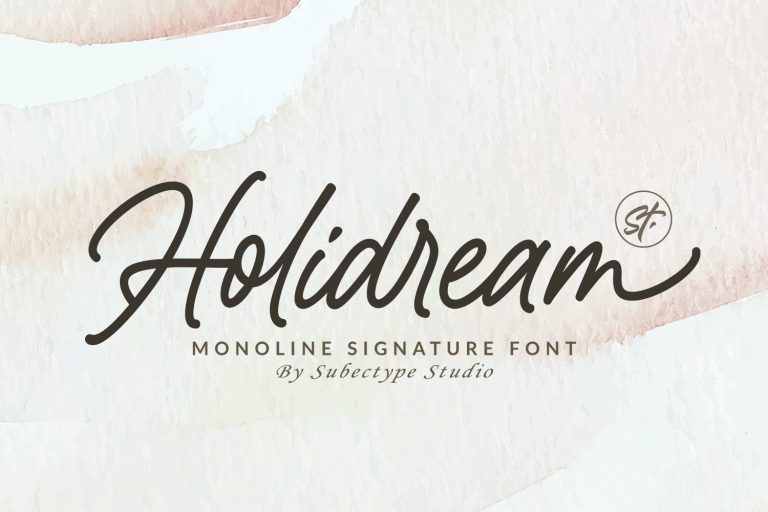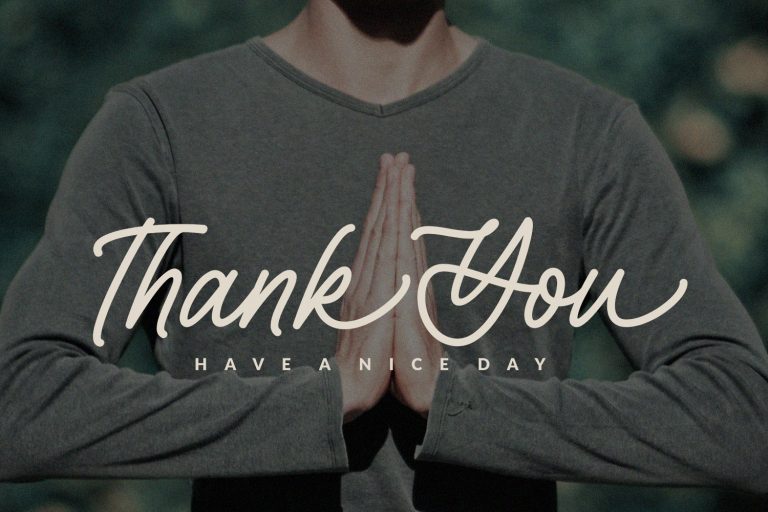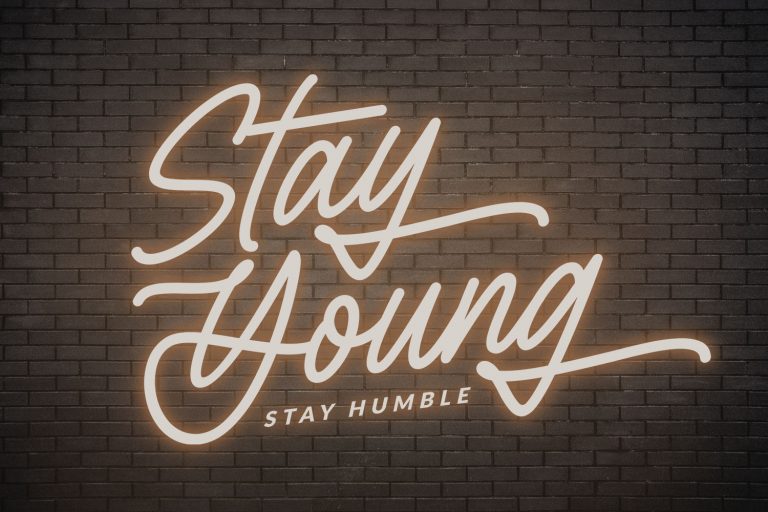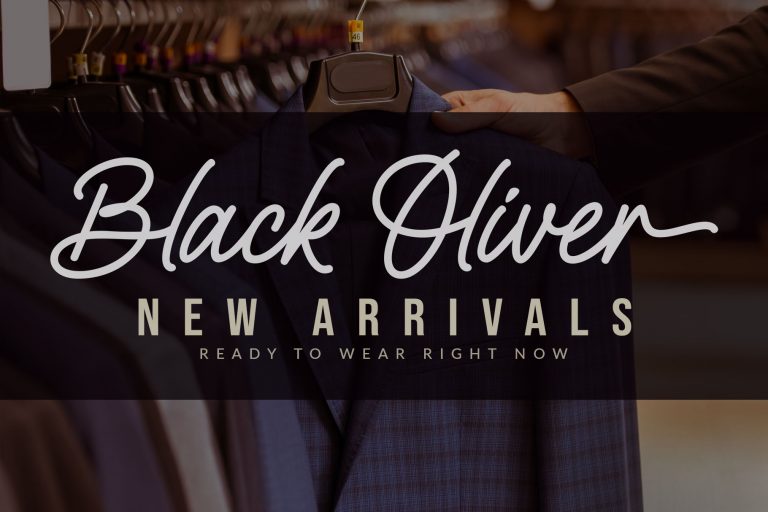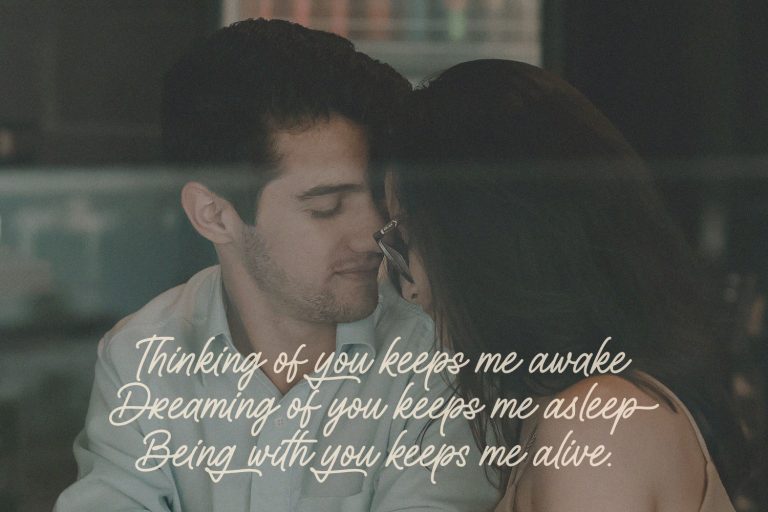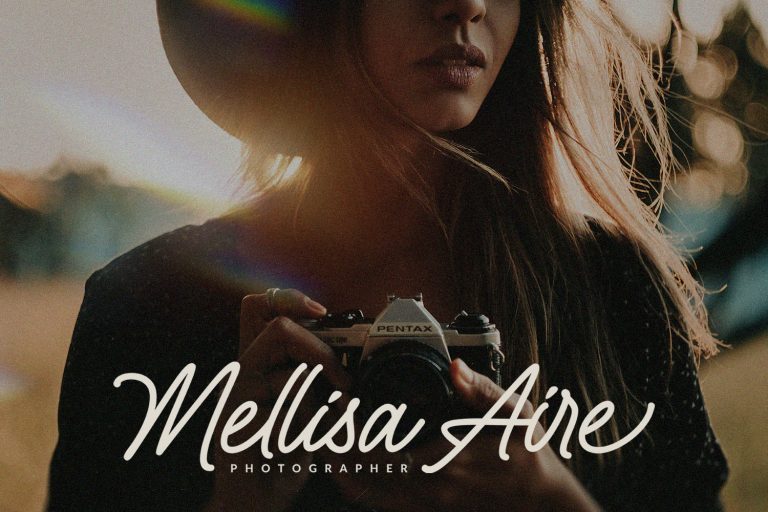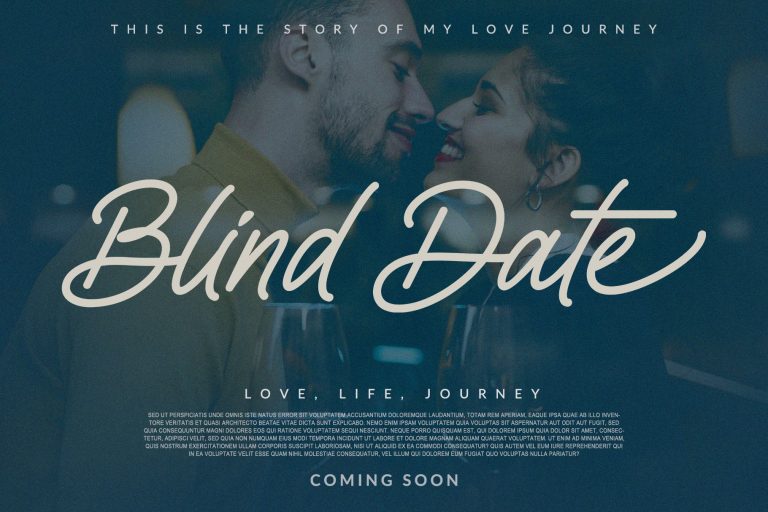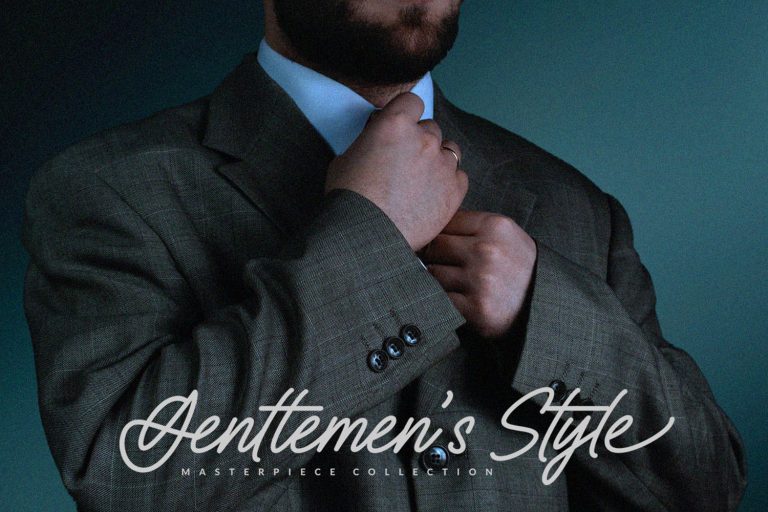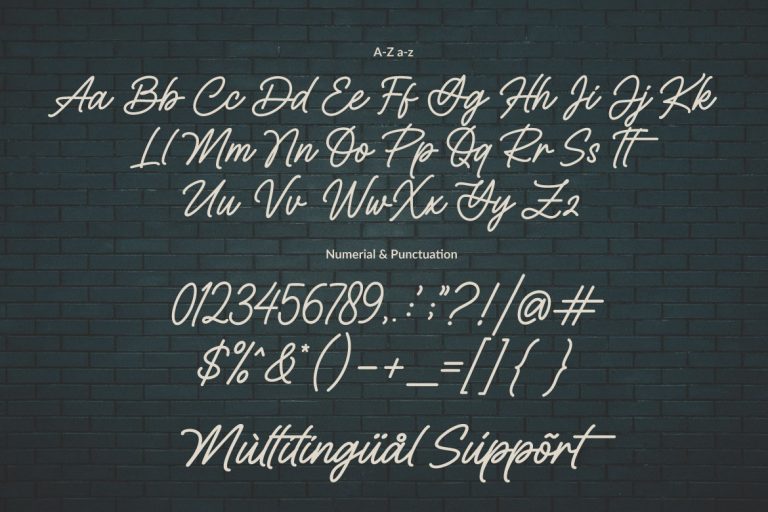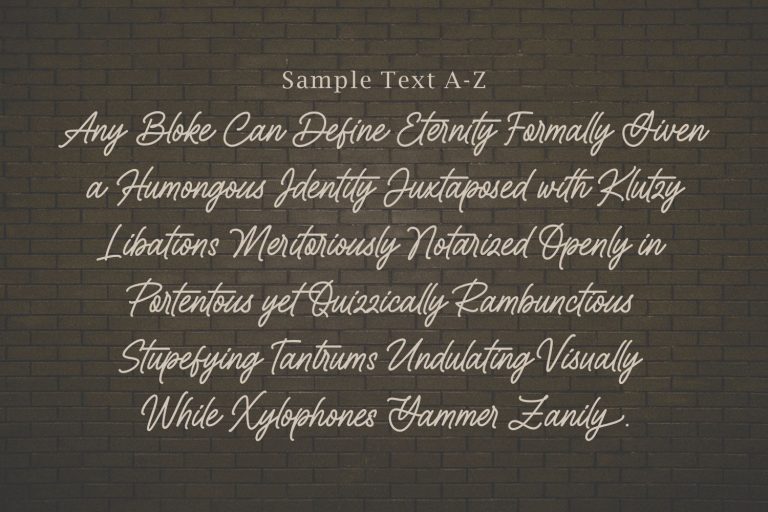
Introducing the new “Holidream” font, a monoline script font. For those of you who are needing a touch of clean monoline handwritten Font,
chic and modernity for your designs, this font was created for you!
Holidream was built with beautiful alternate ending.
and It has an extensive lingual support, covering all European Latin scripts.
Ligature & Alternate
Fonts include multilingual support for; Afrikaans, Albanian, Czech, Danish, Dutch, English, Estonian, Finnish, French, German, Hungarian, Italian, Latvian, Lithuanian, Norwegian, Polish, Portugese, Slovak, Slovenian, Spanisch, Swedish.